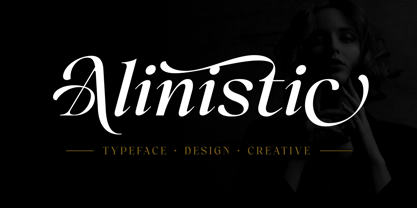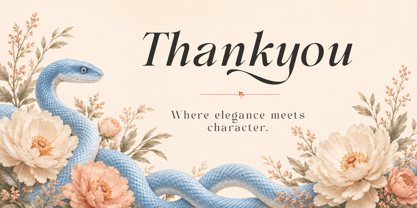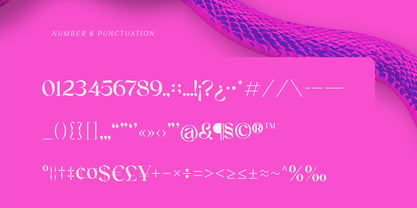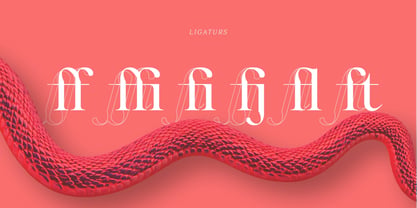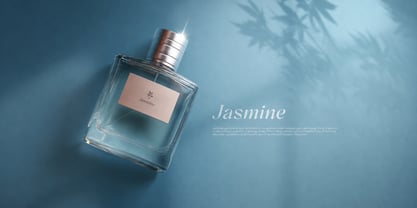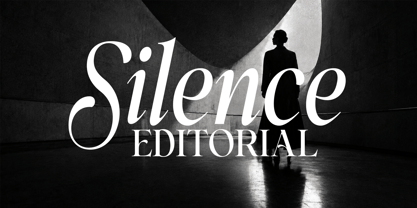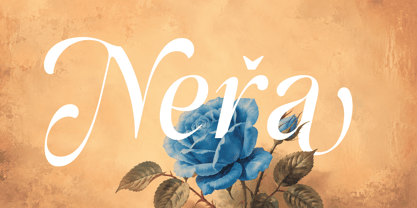
Alinistic
by SynType
The Alinistic Font Family was designed by M Khafid and published by SynType. Alinistic contains 2 styles and family package options. More about this family
Alinistic is an elegant high-contrast serif typeface that blends refined editorial character with expressive calligraphic details. Its graceful curves, sharp hairlines, and distinctive swashes create a sophisticated yet contemporary appearance.
Designed for projects that require a touch of luxury, elegance, and personality, Alinistic works beautifully across fashion branding, editorial layouts, beauty and cosmetics, invitations, packaging, logos, and sophisticated display typography.
Its flowing forms give headlines and short phrases a distinctive visual rhythm while maintaining a polished and premium feel.
Perfect for:
Fashion • Editorial • Branding • Logo Design • Beauty • Packaging • Invitations • Luxury Identity
Designers: M Khafid
Foundry: SynType